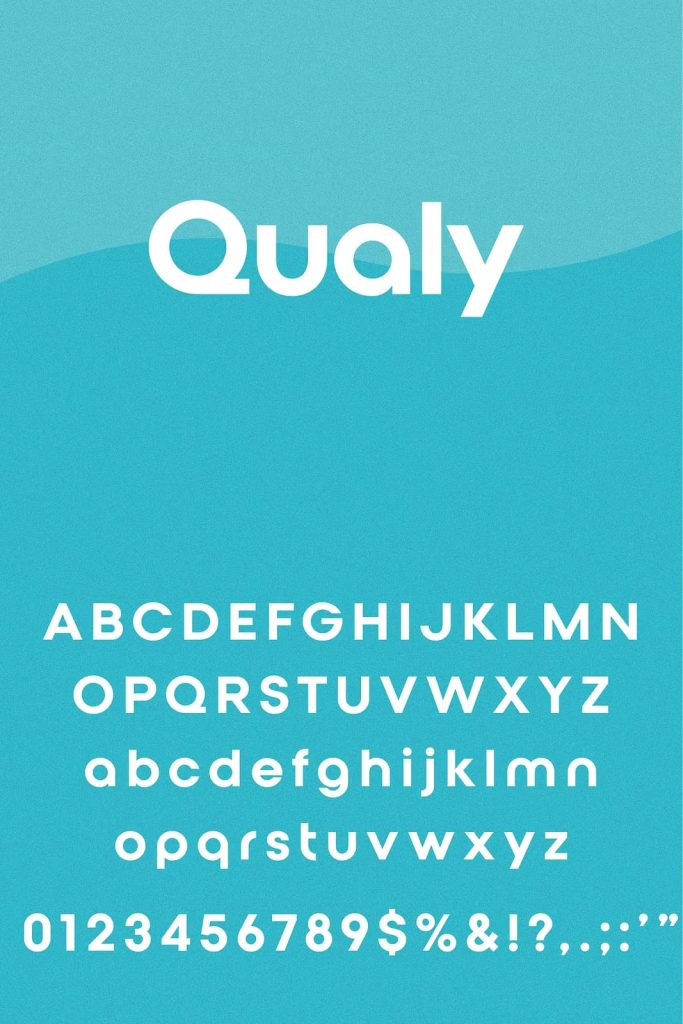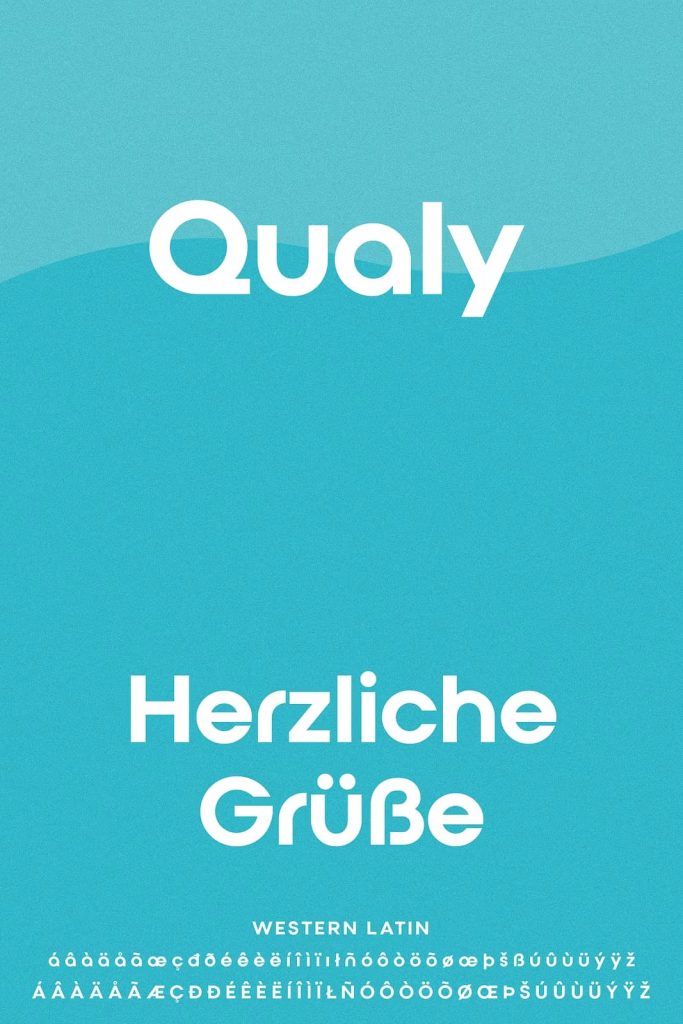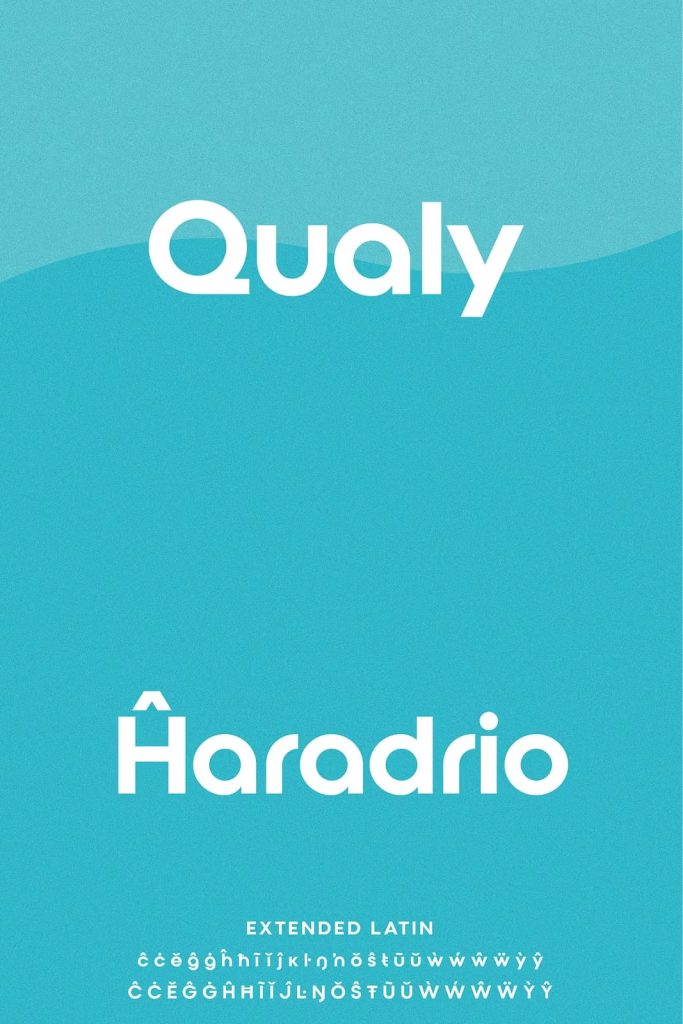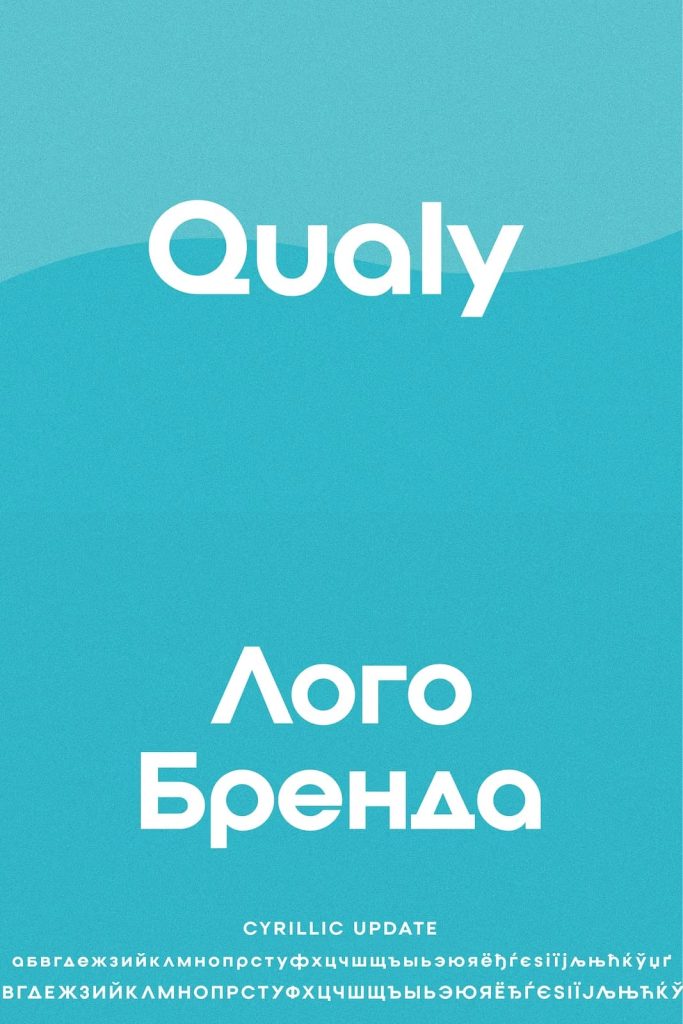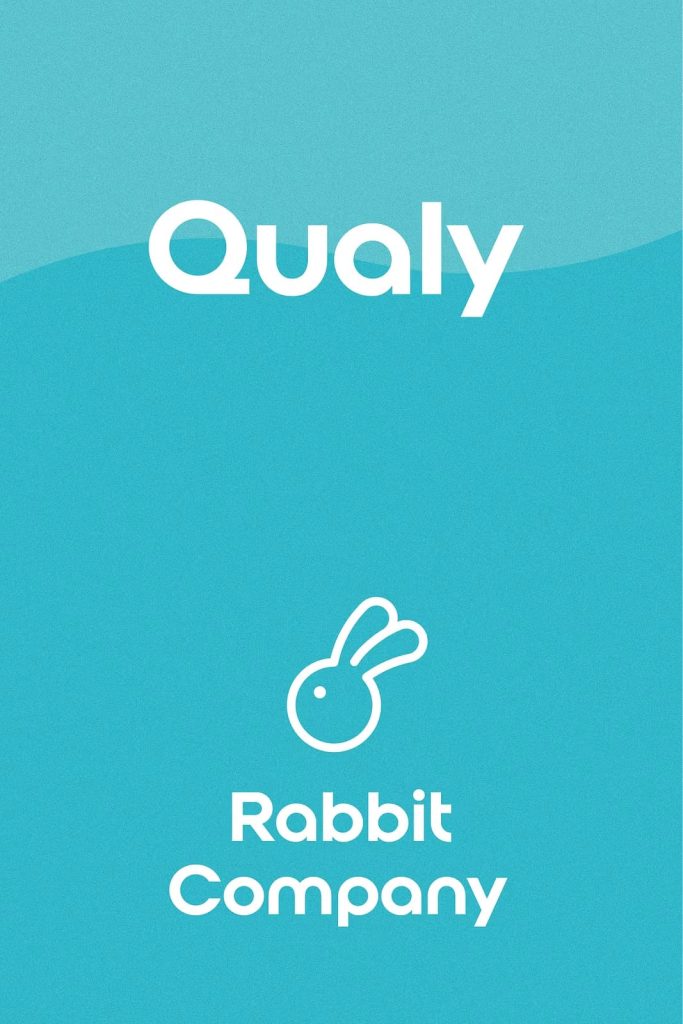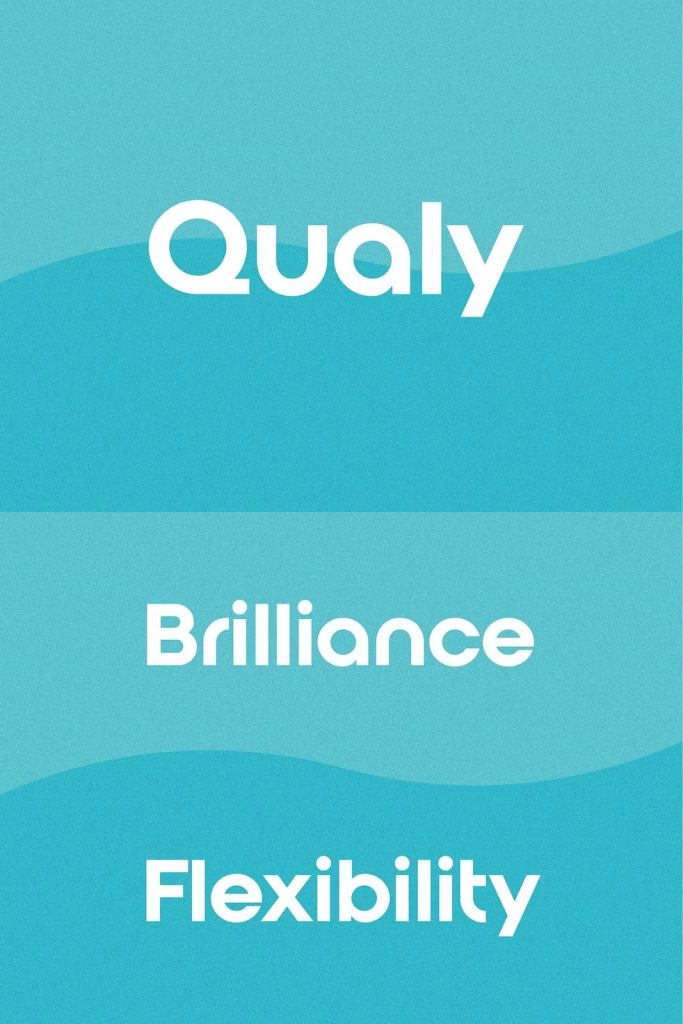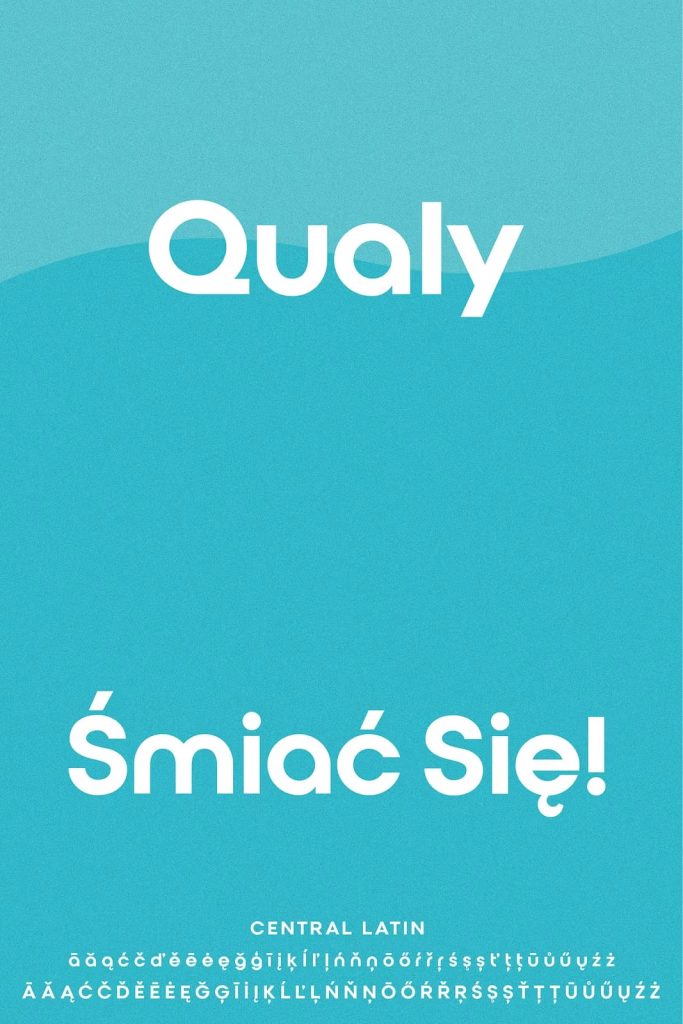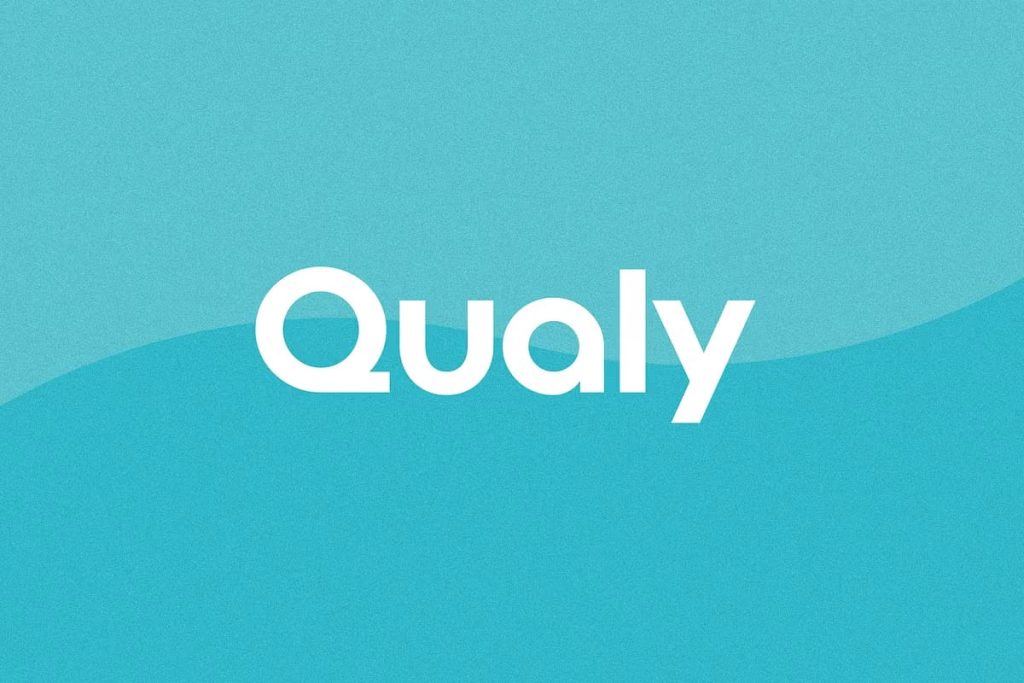
Qualy Logo Font
Qualy Logo Font: A Distinct Typeface Built for Branding
Qualy logo font delivers a focused and purposeful design approach for branding and logo creation. This typeface does not try to fit every situation. Instead, it concentrates on one goal: helping designers build strong, memorable visual identities. Every character in Qualy carries intention, making it a powerful tool for projects that demand originality and impact.
Unlike traditional fonts designed for long paragraphs, Qualy prioritizes visual expression over extended readability. It gives designers the ability to craft logos that stand out immediately and leave a lasting impression. With its distinctive forms and thoughtful construction, Qualy transforms simple words into recognizable brand elements.
Designed Specifically for Logo Creation
Qualy focuses entirely on logo and branding needs. Each character is carefully shaped to work effectively in short text, such as brand names, titles, and taglines. This targeted design approach ensures that every letter contributes to a cohesive and striking composition.
Because of this specialization, Qualy performs best when used in controlled, intentional layouts. It allows designers to create logos that feel unique and tailored, rather than generic or overused. The font encourages creativity while maintaining a strong visual structure.
Strong Letterforms That Capture Attention
The letterforms in Qualy are bold and expressive. They use distinctive shapes and proportions to draw attention instantly. This makes the font ideal for logos that need to stand out in competitive markets.
Each character works as part of a unified system. When combined, the letters create a balanced and recognizable mark. This consistency helps brands establish a clear identity that audiences can easily remember.
Built for Branding Impact
Qualy enhances branding by delivering clarity and personality in a compact form. It allows designers to communicate brand values quickly through typography alone. The font’s unique style helps businesses appear confident, modern, and distinctive.
By focusing on visual impact, Qualy ensures that logos remain effective across different platforms. Whether displayed on websites, packaging, or marketing materials, the font maintains its presence and readability.
Create Memorable Brand Identities
Using Qualy, designers can build identities that stay in the audience’s mind. The font’s character-driven design makes each logo feel custom-made. This level of uniqueness helps brands differentiate themselves and build stronger connections with their audience.
The font also supports consistency. Once applied to a brand, it reinforces recognition across various touchpoints, from digital media to printed materials.
Not Intended for Long Text
Qualy is not suitable for long paragraphs or extended reading. Its design prioritizes style and impact rather than continuous readability. Using it in large blocks of text can reduce clarity and overwhelm the viewer.
Instead, designers should use Qualy strategically. Apply it to headlines, logos, and short phrases where its strengths can shine. Pair it with a more neutral typeface for body text to create a balanced and functional design system.
Use Strategically for Best Results
To maximize the effectiveness of Qualy, focus on placement and context. Use it in areas where attention matters most, such as brand marks, titles, and key messages. This approach ensures that the font enhances the design without compromising usability.
Combining Qualy with complementary fonts can also improve overall layout quality. This allows you to maintain readability while still showcasing the font’s unique character.
Versatile Across Branding Applications
Qualy adapts well to different branding environments. It works effectively for logos, packaging, social media graphics, and promotional materials. Its strong visual identity remains consistent across both digital and print formats.
The font’s flexibility makes it suitable for various industries, from creative businesses to modern startups. It provides a reliable foundation for building a cohesive and professional brand image.
Enhance Visual Consistency
By using Qualy across multiple design elements, you can create a unified brand presence. The font’s distinctive style ensures that all visual components align with the same identity. This consistency strengthens brand recognition and improves overall design quality.
Whether you design a logo, a product label, or a marketing campaign, Qualy helps maintain a clear and consistent visual language.
Why Choose Qualy Logo Font?
Qualy logo font offers a specialized solution for designers who want to focus on branding excellence. Its character-driven design, bold forms, and targeted functionality make it a valuable asset for creating impactful logos.
By choosing Qualy, you gain a font that prioritizes identity, clarity, and visual strength. It allows you to craft designs that stand out, communicate effectively, and remain memorable. For branding-focused projects, Qualy delivers precision and creativity in every character.